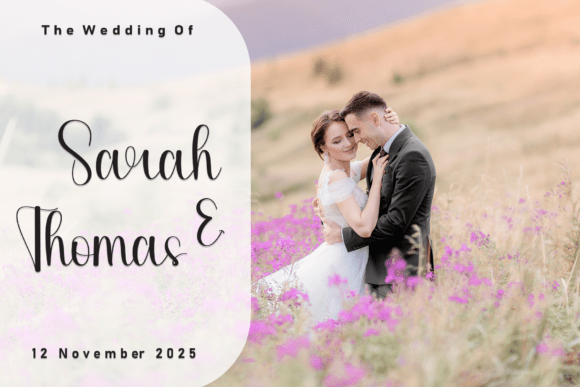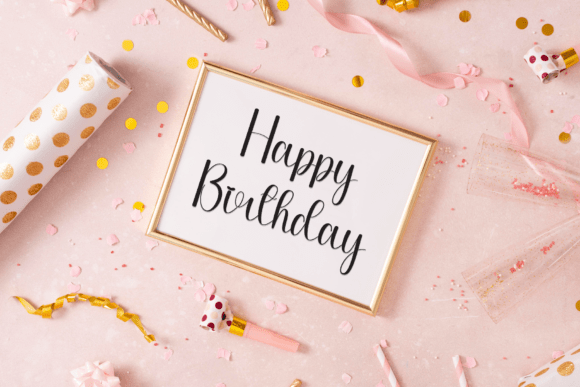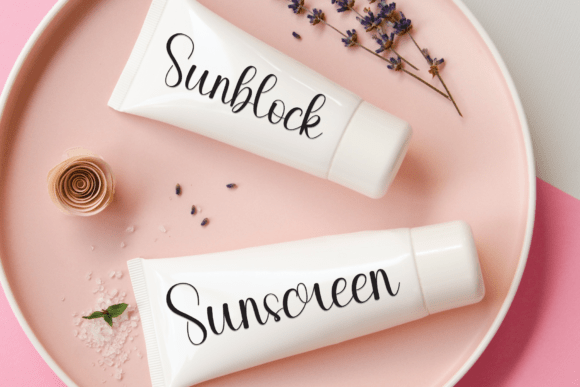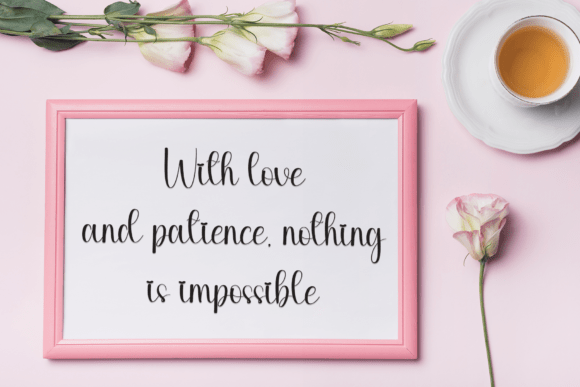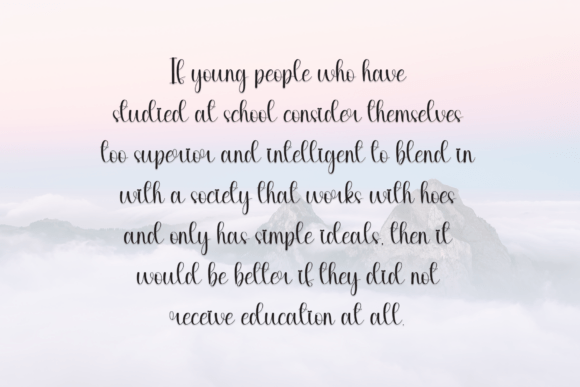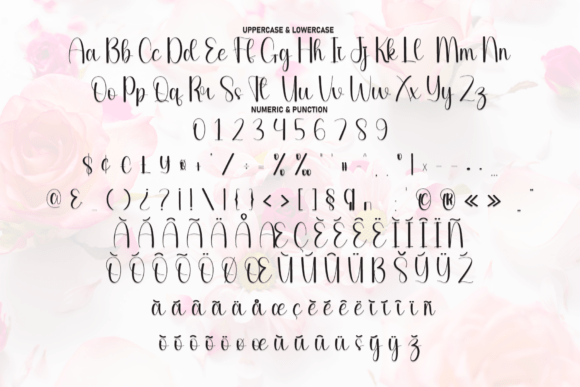
The Art of Typography: Unleashing the Beauty of Darling Font
Have you ever sat at your desk, surrounded by scribbled notes and scattered ideas, waiting for that one perfect font to bring your design to life? For many creatives, that moment of inspiration can be elusive, but with the right tools, it’s within reach. And for those seeking a touch of artistic flair, the Darling Font is sure to spark your imagination.
This stylish script font is a masterful blend of modern elegance and hand-painted charm, featuring fluid brush strokes and dynamic curves that evoke the essence of calligraphy. Whether you’re crafting a logo, designing an invitation, or creating social media graphics, the Darling Font adds a sophisticated and creative touch to any project.
For designers, the Darling Font is a valuable asset, offering a unique blend of visual impact and versatility that can elevate any design to the next level. With its natural flow and vibrant character, it’s the perfect tool for anyone looking to add a little extra magic to their work.
Darling Font Key Features
- Font Family: Darling Font is a unique, high-end script font family.
- Unique Characteristics: Features elegant, flowing connections and subtle flair to create a sophisticated and luxurious feel.
- Language Support: Supports a wide range of languages, including Latin, Greek, and Cyrillic scripts.
Darling Font Review
I’ve had the chance to work with the Darling Font, and overall, I’d say it’s a solid choice for a clean and elegant aesthetic. Here are some things that stood out to me:
- ✨ Unique character set: The Darling Font has some really interesting and unique characters that can add a touch of whimsy to your design.
- ✨ Good legibility: The font is well-spaced and easy to read, making it a great choice for body text.
- ✨ Versatile: Darling Font can work well for both digital and print design projects.
- ⚠️ Limited bold and italic options: If you need a lot of bold or italic text, you might find the options in the Darling Font to be a bit limited.
- ⚠️ Not ideal for large blocks of text: While the font is great for smaller amounts of text, it can start to look a bit cluttered when used for large blocks of text.
Overall, I think the Darling Font is a great choice for designers who want a clean and elegant aesthetic. With a little creativity and planning, you can work around its limitations and create some really beautiful designs.
For optimal results, use Darling Font for titles, headings, and other emphasis text. Experiment with different font sizes and colors to create a visually appealing design. Avoid using Darling Font for large blocks of text, as it may be difficult to read.
Darling Font is ideal for creative projects, such as invitations, greeting cards, and social media graphics. It’s also great for personal branding and logo design.